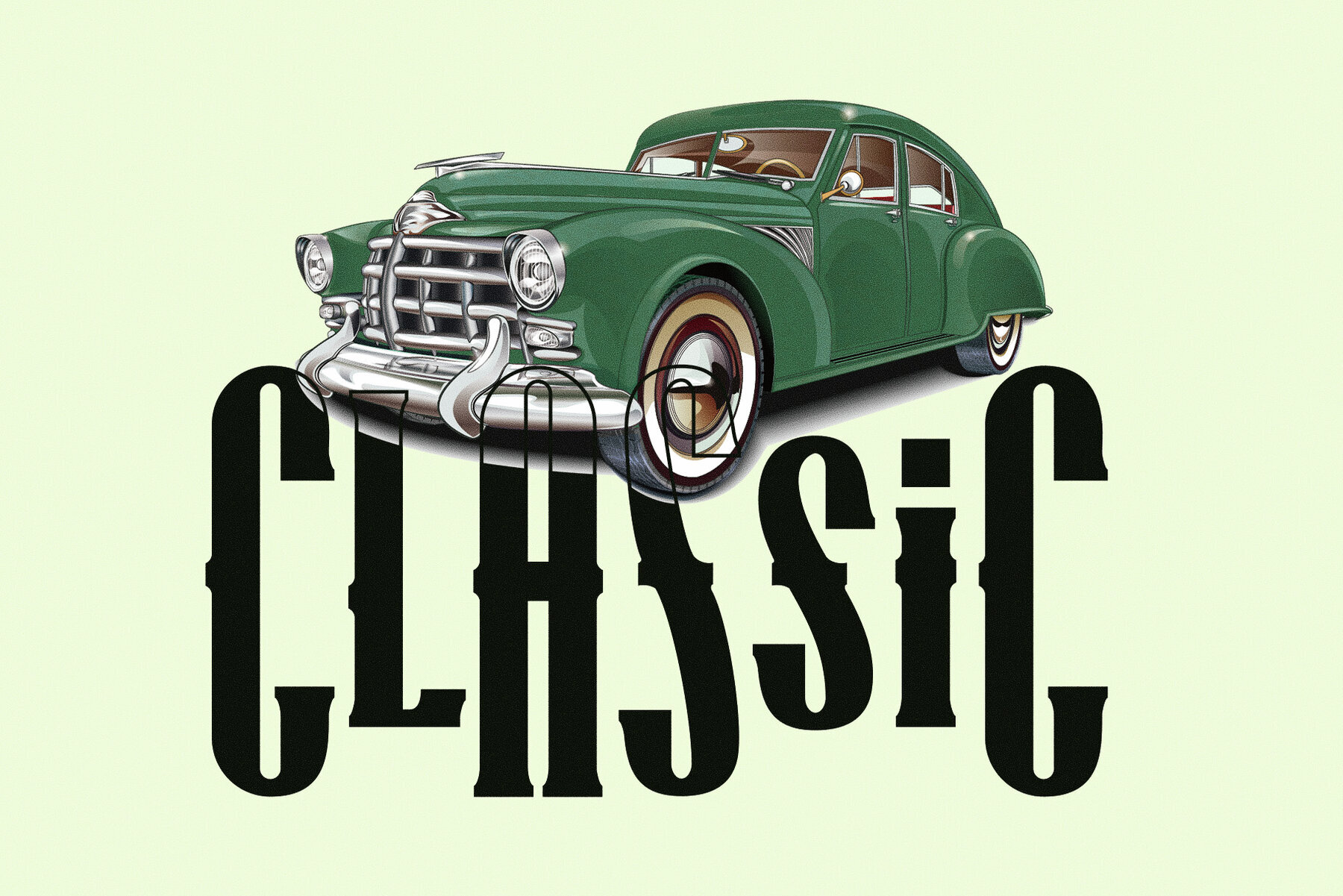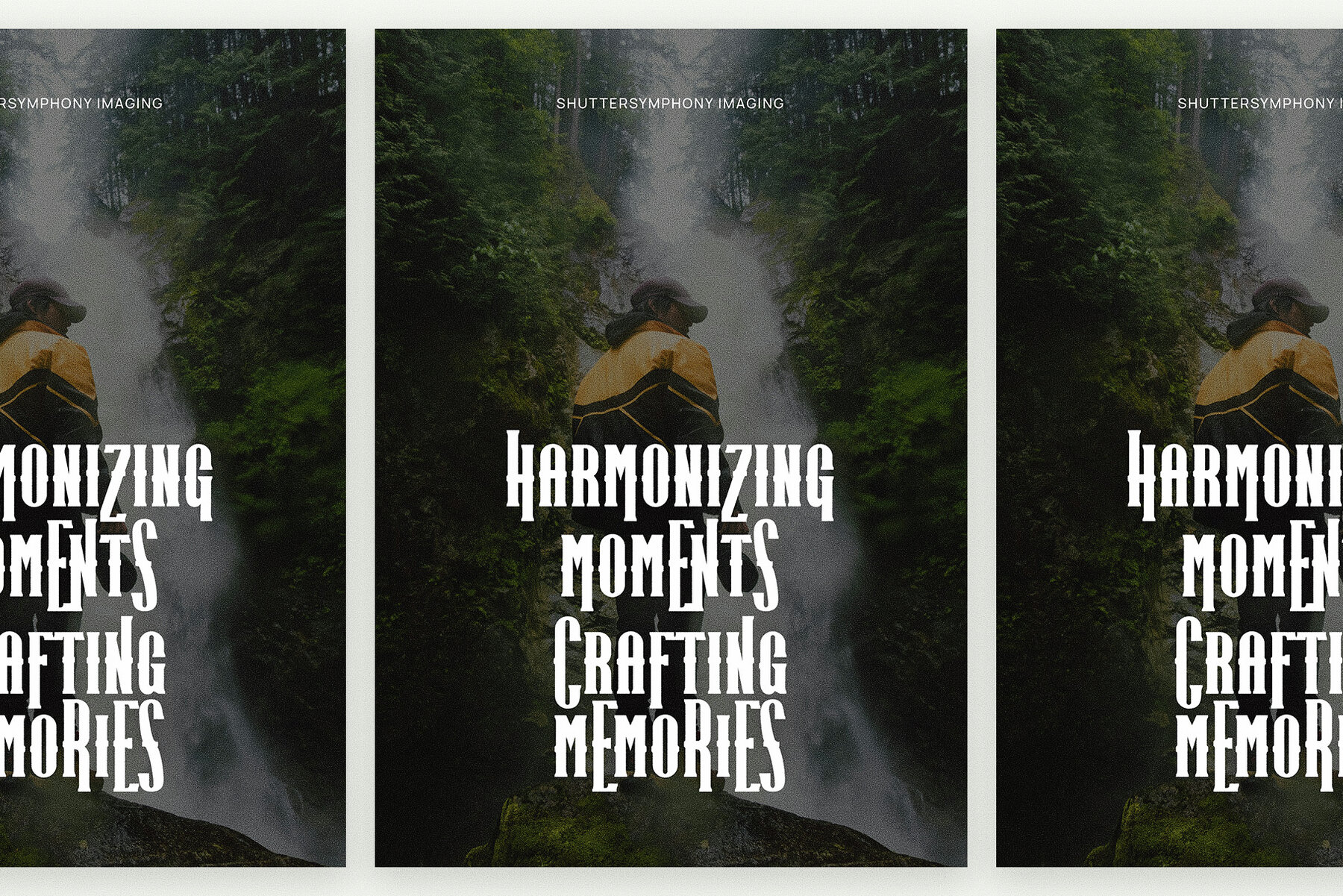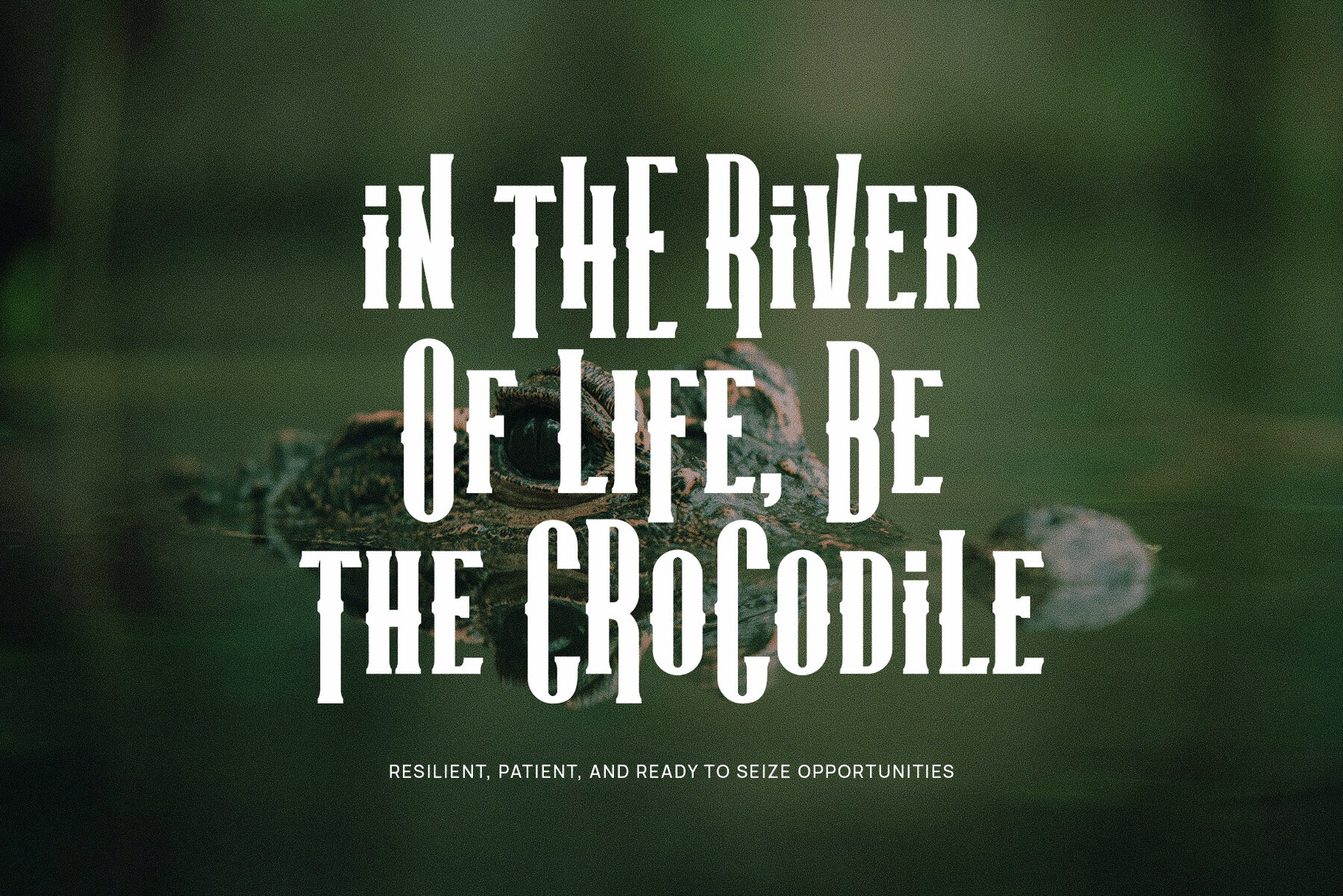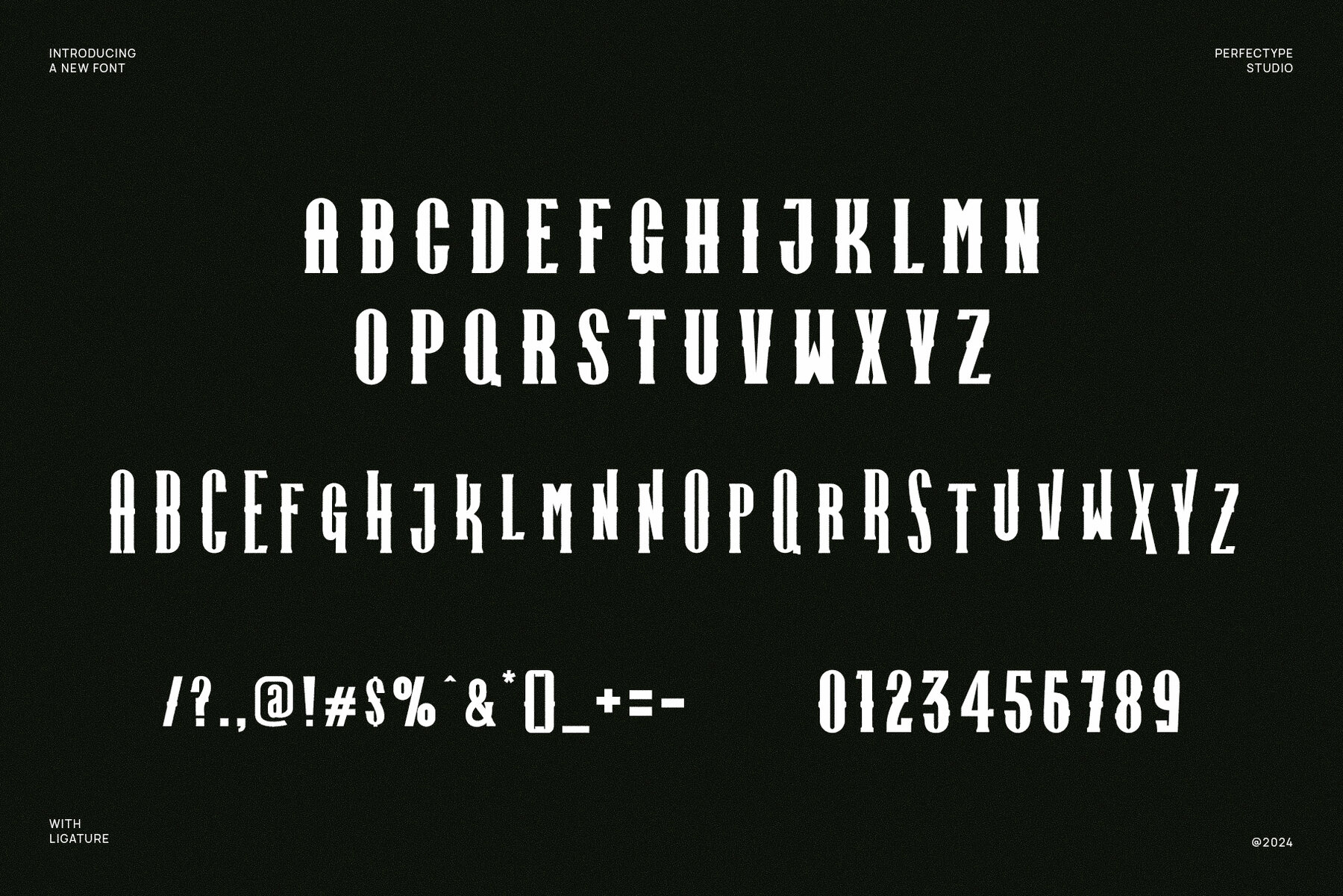
Branid Font
Branid
Branid Vintage Font is a bold slab serif typeface that blends classic design elements with a modern flair. Its strong, sturdy letterforms feature unique pointed shapes within each character, creating a powerful and distinctive look. This font is enriched by charming alternates, offering designers flexible options for creative expression. Branid's standout characteristics make it ideal for a wide array of uses such as branding, logos, vintage-inspired pieces, product packaging, advertisements, and magazine layouts. It captures the essence of nostalgia while maintaining a contemporary edge, making it a versatile choice for any project.
This font excels in projects that require a combination of timeless charm and bold impact. Perfect for vintage, retro, and classic-themed designs, Branid commands attention whether used in print or digital media. Its strong presence ensures excellent legibility across various applications like websites, t-shirts, and tattoos. The unique character shapes and robust structure make Branid Vintage Font an exemplary choice for designers aiming to craft memorable and striking visuals. Whether developing a logo for a craft brand or a retro-themed website, this font blends strength and nostalgia to create standout designs that leave a lasting impression.